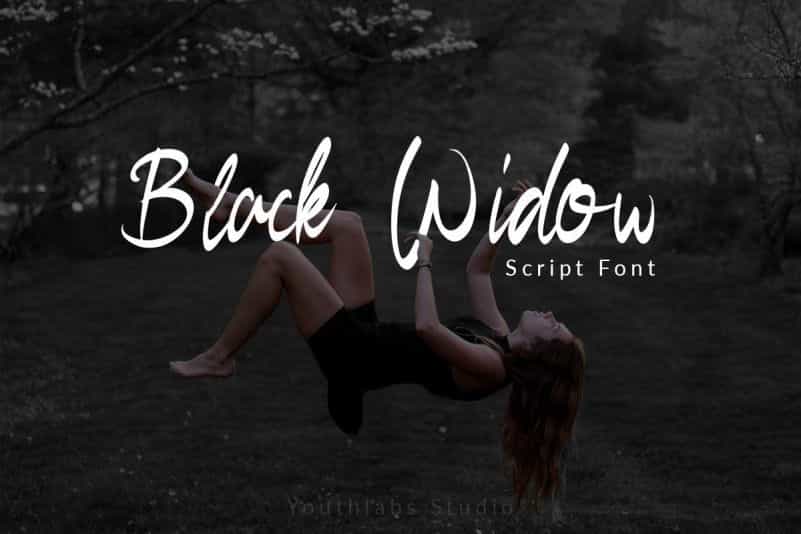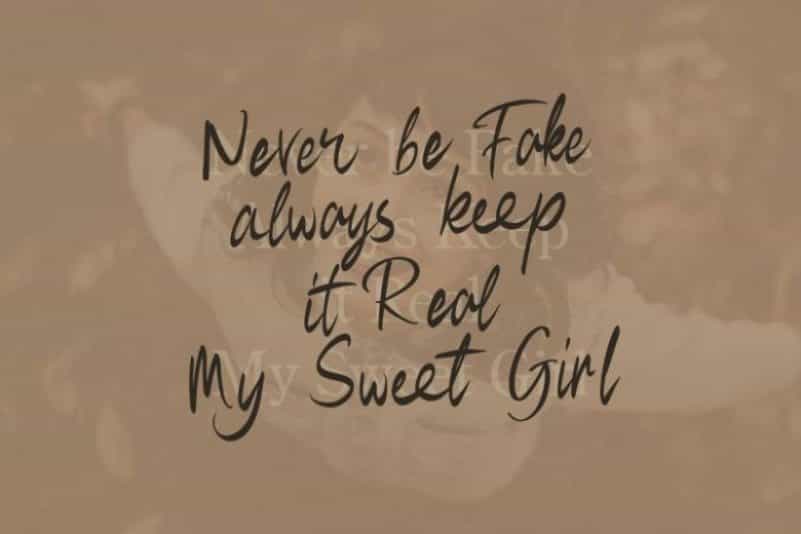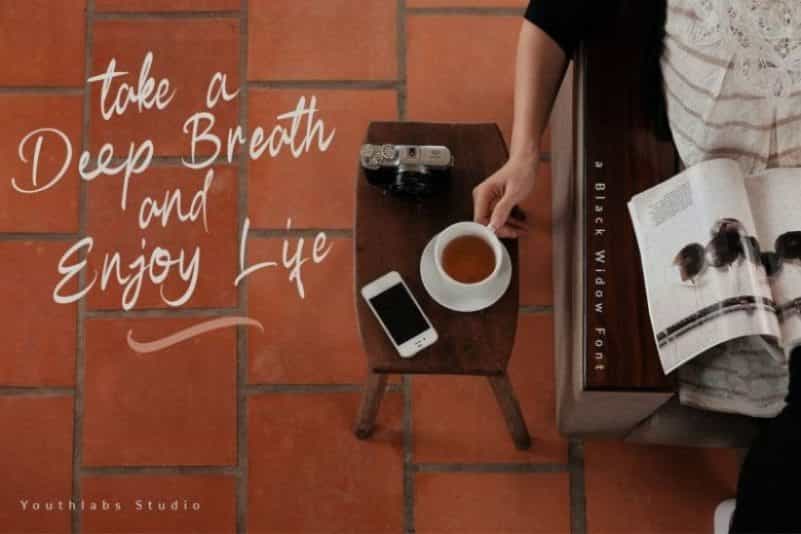
Black Widow Font is a smooth, weighted font which belongs to scripts category. Striking, yet legible. Perfect for a headline or for the end of the article! This playful font will gives your designs that fresh, modern look to it and will look beautiful in quotes, cards and all your beautiful creations.